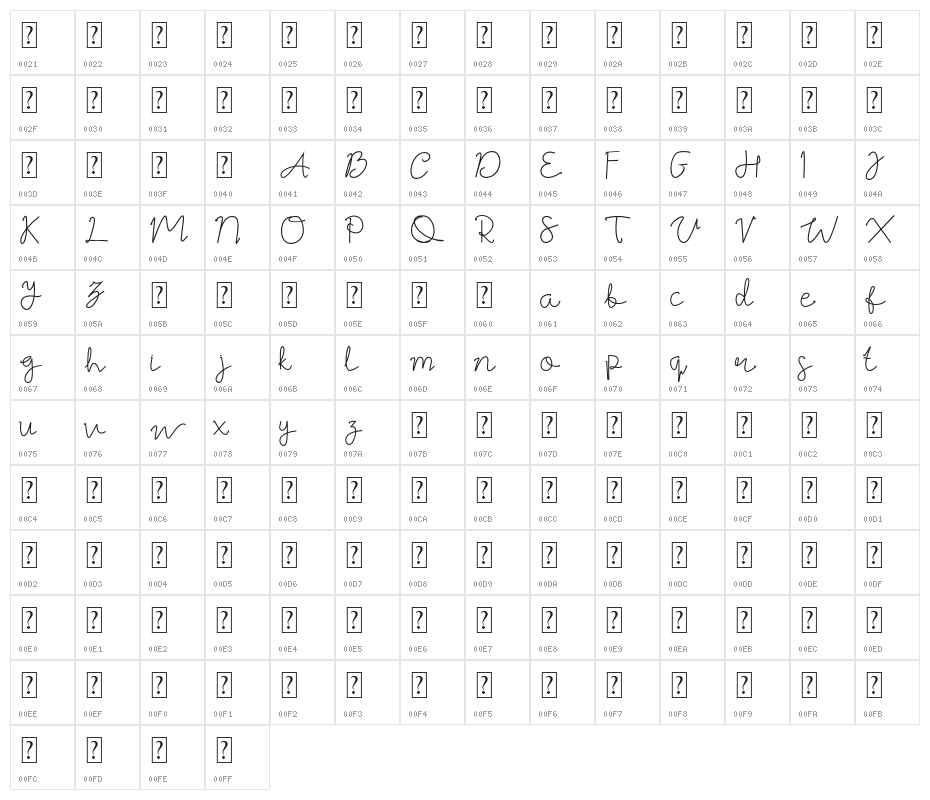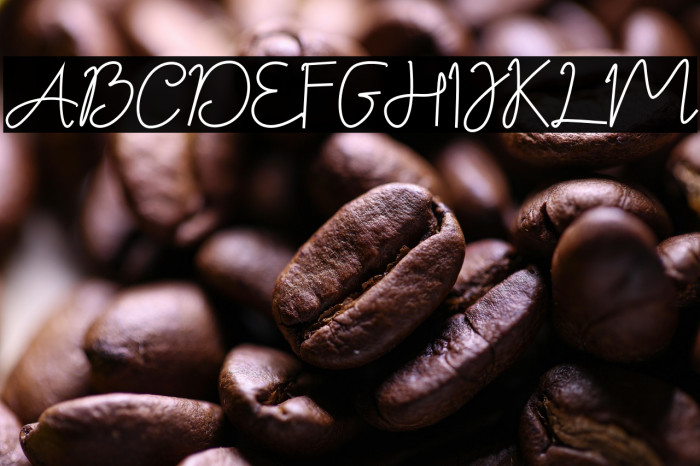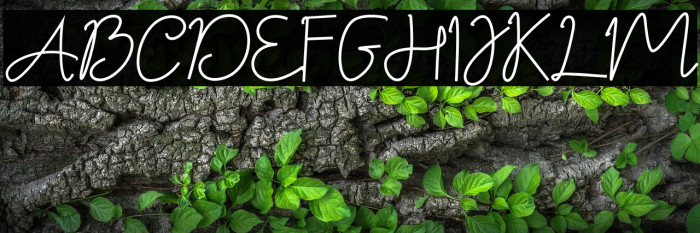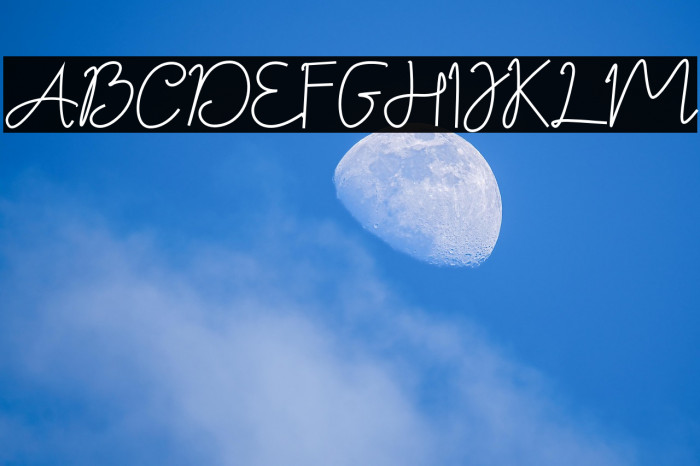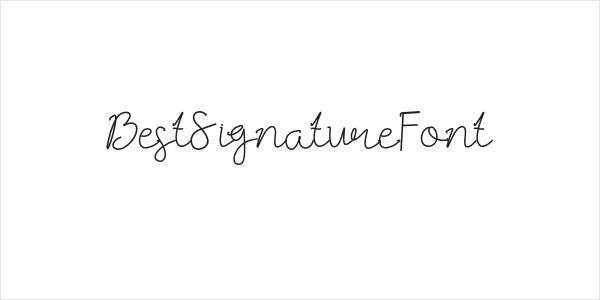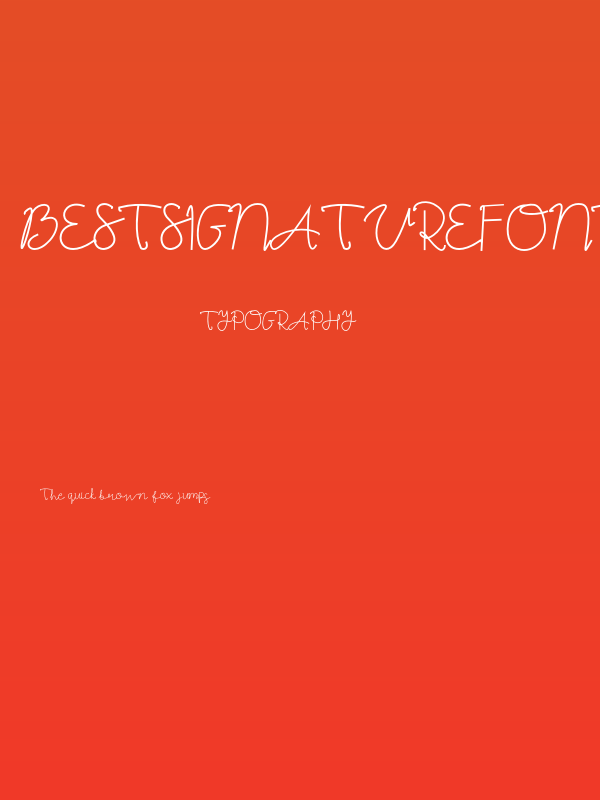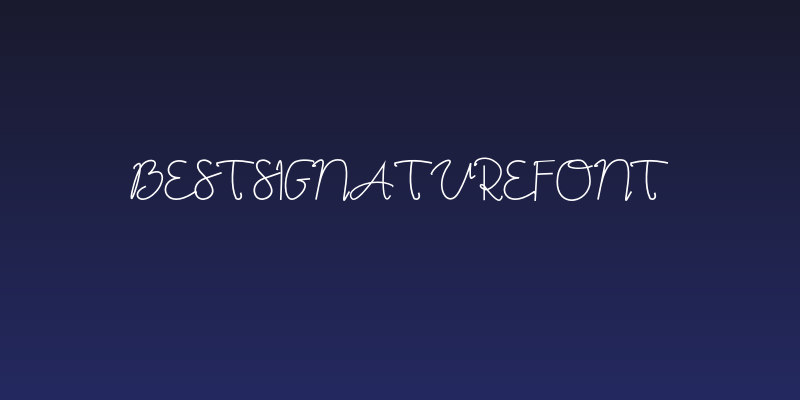
BestSignatureFont Font
This font features a flowing, cursive style that mimics the elegance of a handwritten signature. The uppercase letters are distinct with smooth curves and loops, while the lowercase letters maintain a consistent fluidity, enhancing the script's overall aesthetic. The strokes are moderately thick, providing a balanced contrast that ensures readability without sacrificing style. The font's design is both sophisticated and approachable, making it suitable for a variety of creative applications. Its unique character spacing adds to its charm, offering a sense of movement and grace.
| Overall Style | Elegant, Handwritten |
| Use Case | Logos, Invitations, Personal Branding |
| Proposed Projects | Ideal for wedding invitations, personal branding, logo design, and elegant stationery. |